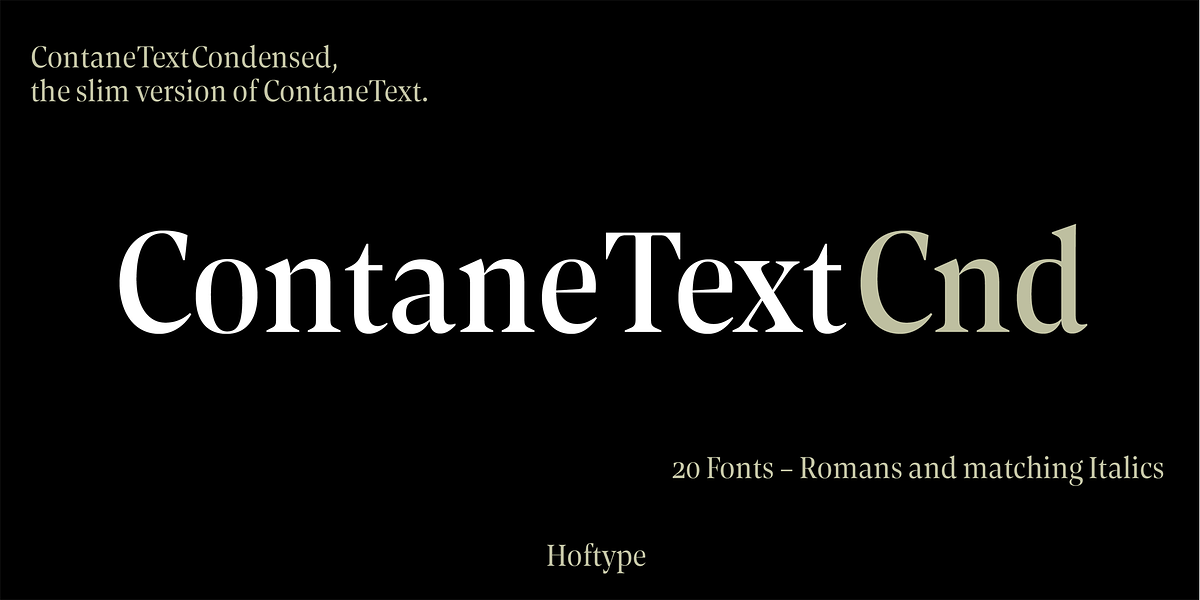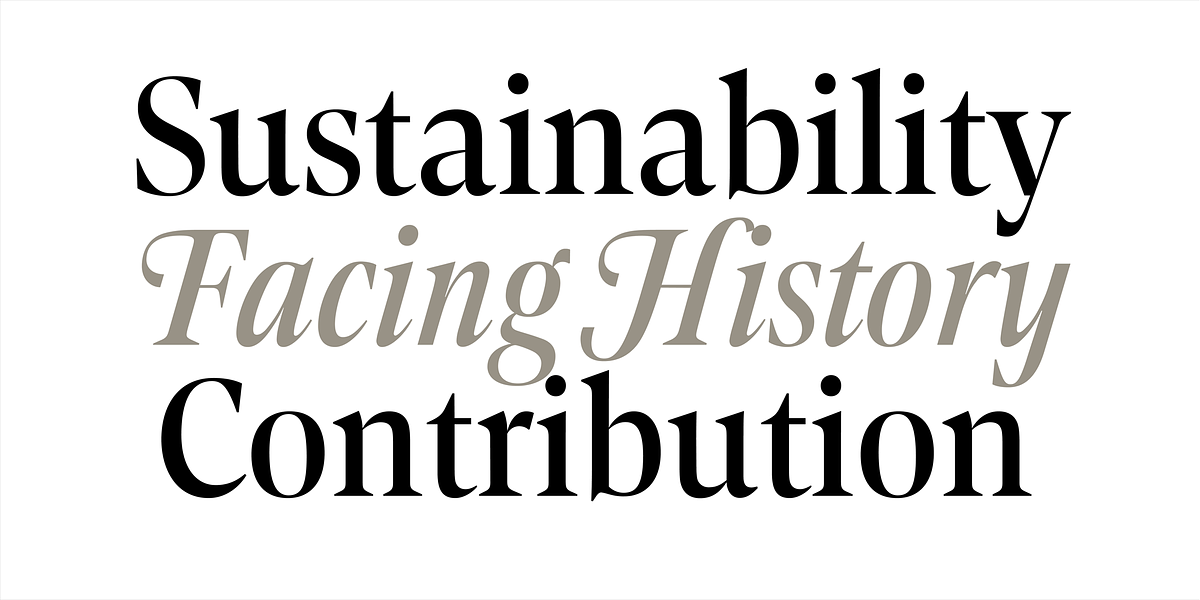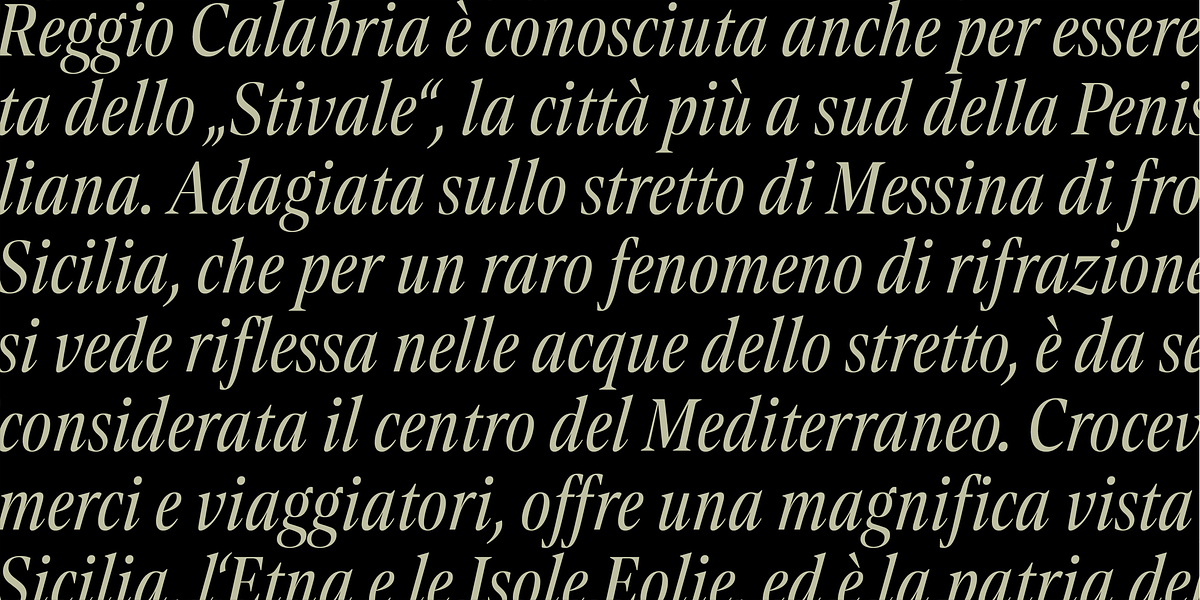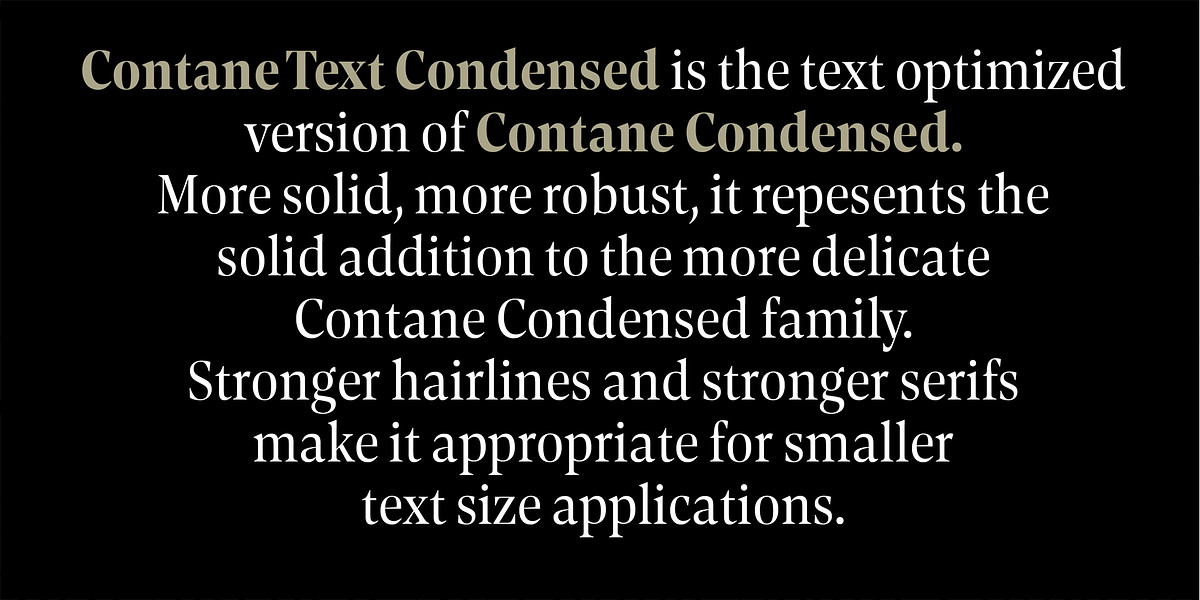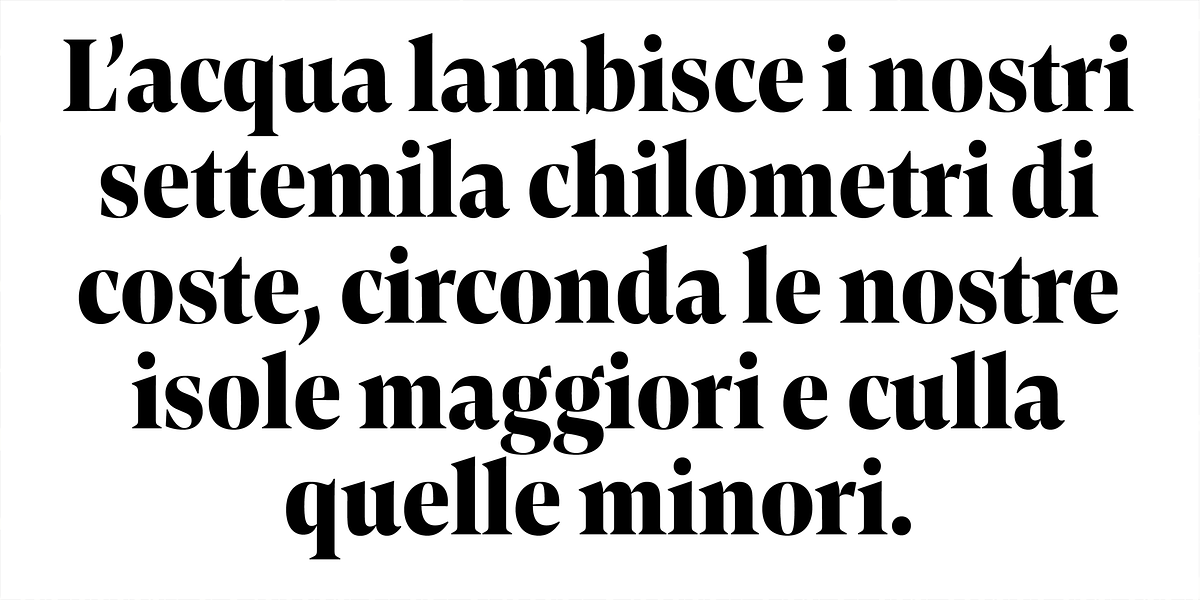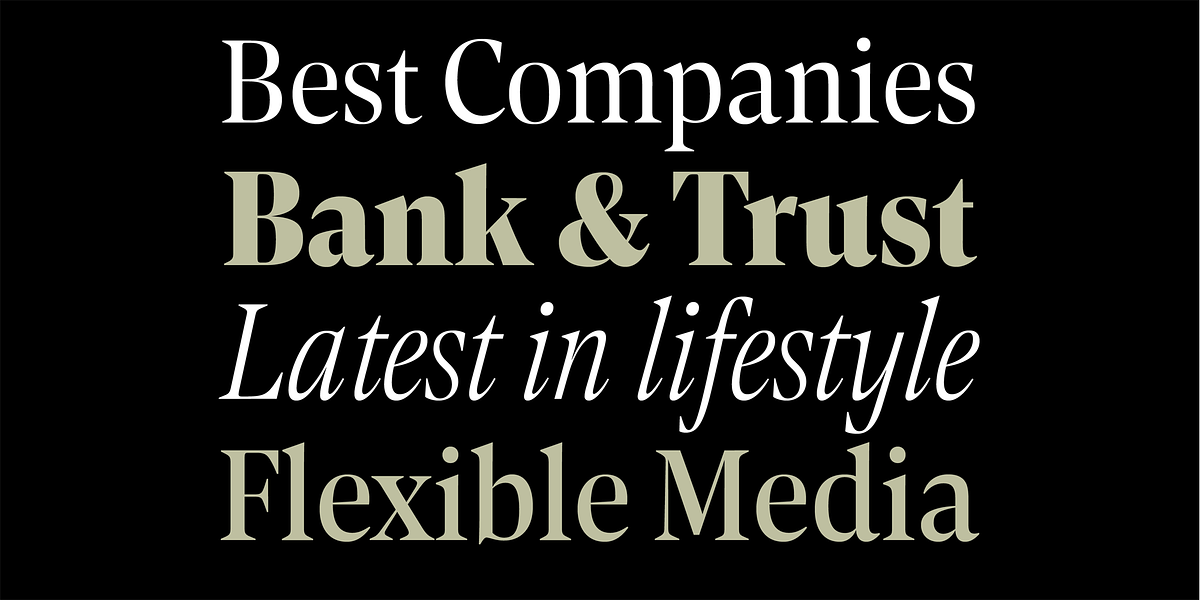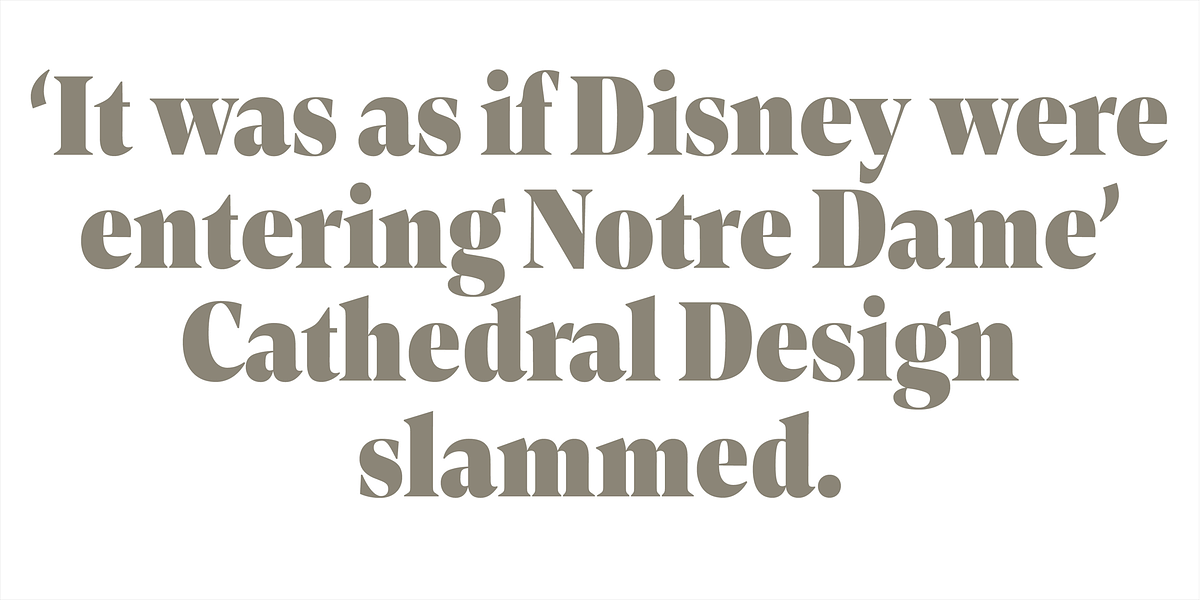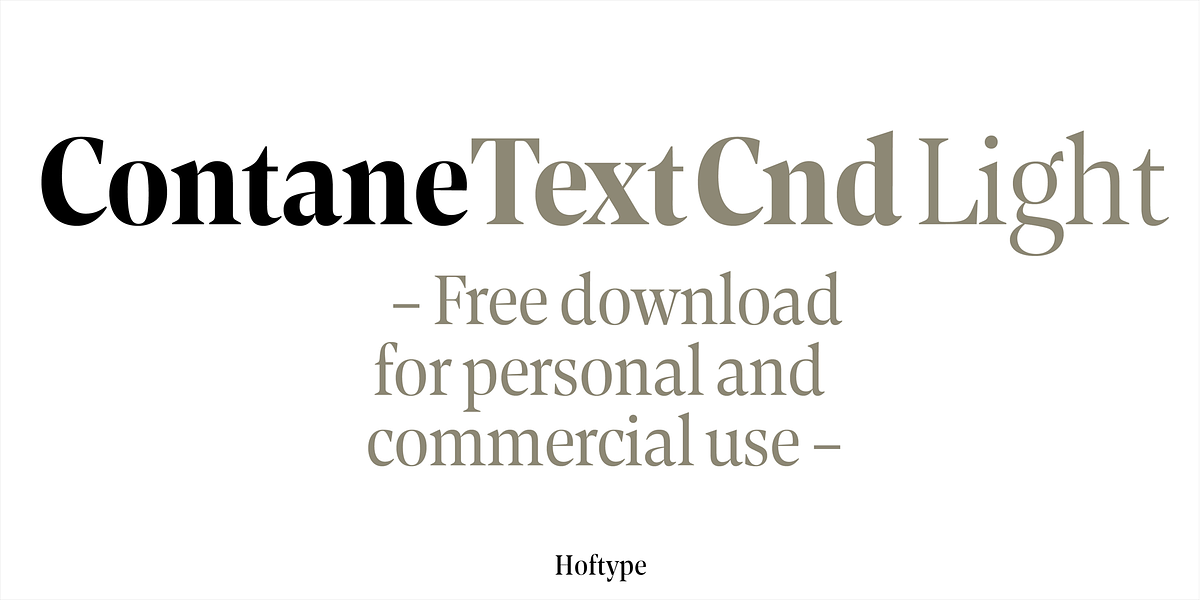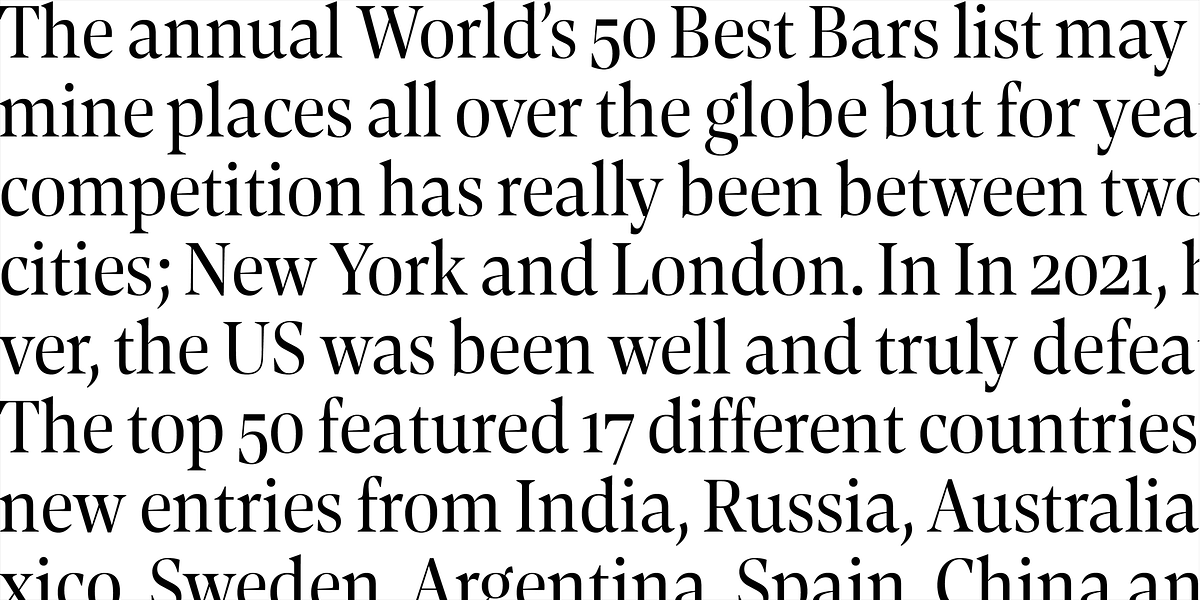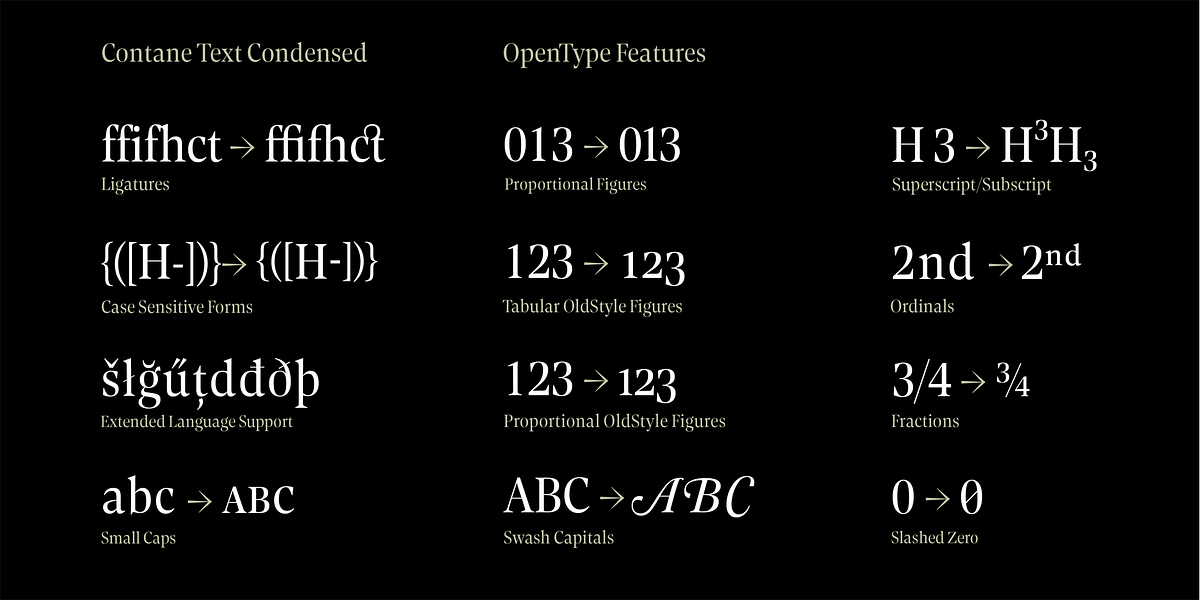
Contane Text Condensed
Contane Text Condensed is designed for readability in smaller text sizes. It features strong hairlines and pronounced serifs characteristic of the didone serif style. The font supports a wide range of languages and typographic features, including small caps, ligatures, various numerals, and alternate characters.